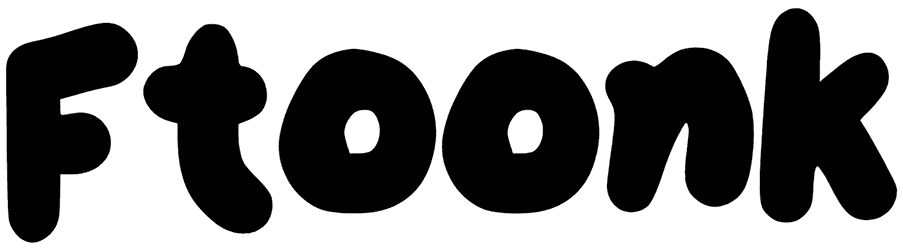
Ftoonk Font
Ftoonk is one of the most individual fonts that conveys all things magic, joy, and excitement. This cartoon font is a full-fledged professional style for designers who have not yet gained enough experience designing unique fonts.
So wherever you need to create beauty, use this fat font to express your feelings. Ftoonk is ready to create a different experience of designing posters, advertisements, animations, and computer games.
I designed this font to replicate, in visual format, the sound of a rubber ball hitting a middle-schooler in the face during a dodgeball game.
FTOONK!